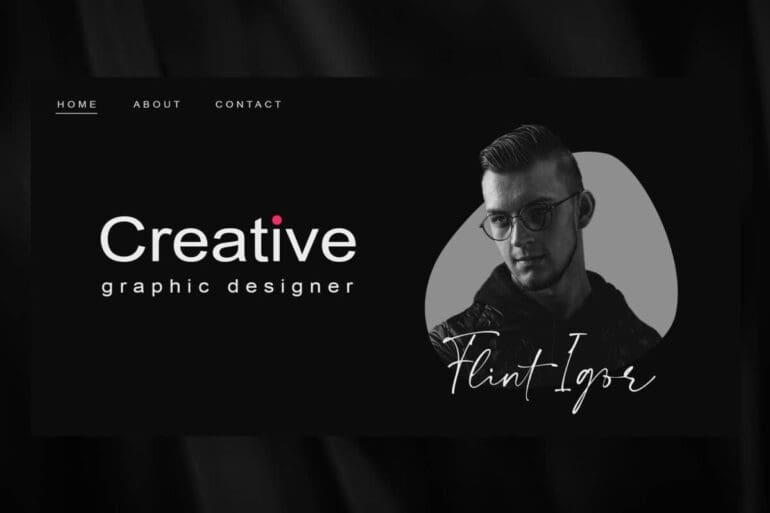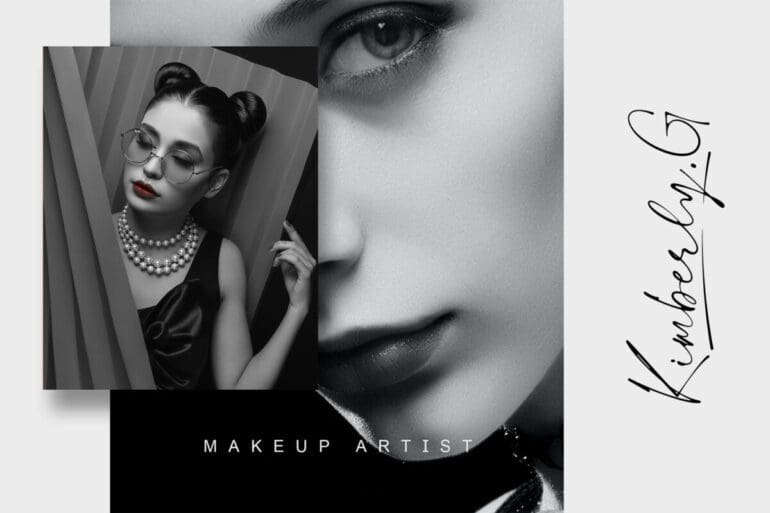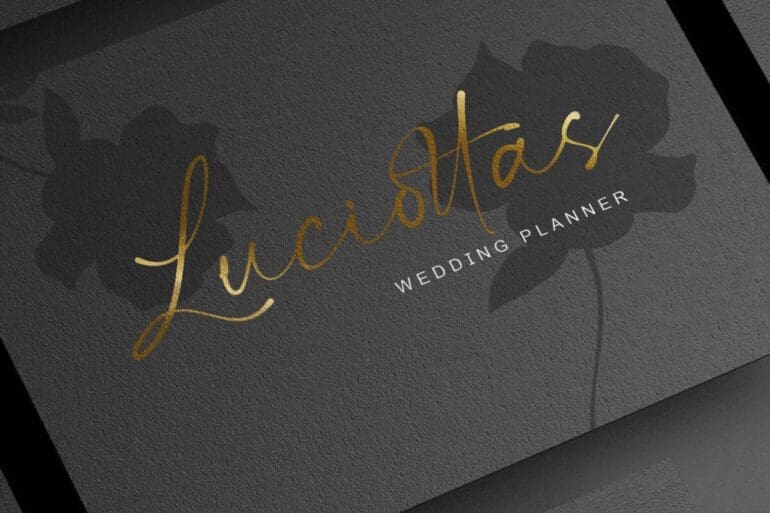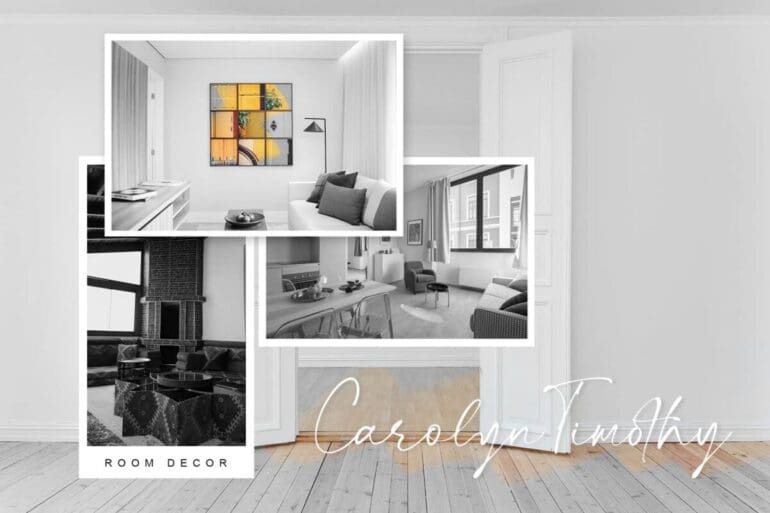
Jason Signature Font
Jason Signature is a modern signature font, is perfect for many different project such as logos & branding, invitation, stationery, wedding designs, social media posts, advertisements, product packaging, product designs, label, photography, watermark, special events or anything.